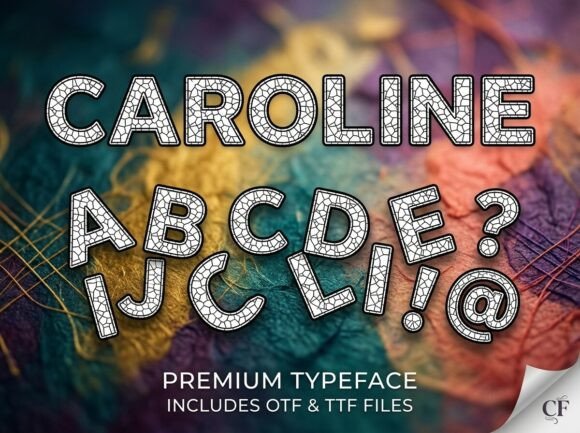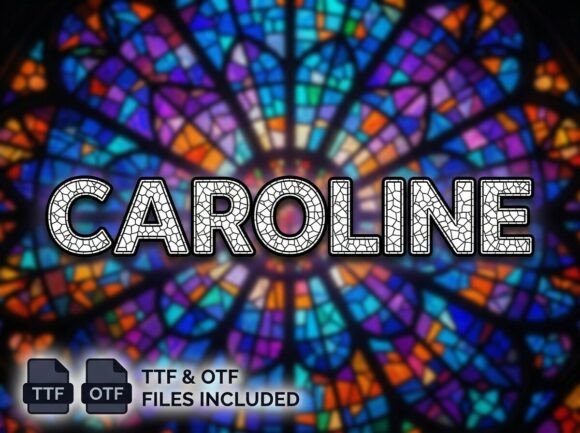
Introducing Caroline: The Bold Display Font Elevating Modern Branding
In the world of typography, a font can make or break a brand’s identity. For designers and crafters seeking to elevate their branding, Caroline – a bold display font – is the perfect solution. This stunning typeface seamlessly balances clean, modern geometry with intricate internal detail, giving it a unique “high-tech-artisan” soul.
The Design Behind Caroline
Caroline features sturdy, sans-serif letterforms meticulously filled with a microscopic “stained-glass” or mosaic pattern. This distinctive design element sets Caroline apart from other fonts, imbuing it with a sense of sophistication and elegance. The font’s bold and authoritative weight makes it perfect for headlines, titles, and statements that demand attention.
Ideal Applications for Caroline
Caroline’s versatility and professional clarity make it an excellent choice for a variety of applications, including:
- Modern Architectural Identities: Caroline’s clean lines and geometric patterns evoke a sense of modernity and innovation, making it perfect for architectural firms, real estate brands, and construction companies.
- Independent Jewelry Branding: The font’s luxurious feel and attention to detail make it an excellent fit for high-end jewelry brands, boutique stores, and independent designers.
- Innovative Textile Design Headers: Caroline’s bold and colorful personality shines in textile design, adding a touch of sophistication to fabric patterns, fashion brands, and home decor.
- Striking “Digital-Abstract” Social Media Graphics: The font’s geometric patterns and modern aesthetic make it perfect for creating eye-catching social media graphics, digital art, and online advertising.
Why Choose Caroline?
With Caroline, designers and crafters can:
- Elevate their branding: Caroline’s unique design and authoritative weight help establish a strong brand identity that stands out from the competition.
- Convey professionalism: The font’s clean lines, geometric patterns, and attention to detail convey a sense of expertise and professionalism.
- Add a touch of sophistication: Caroline’s luxurious feel and elegant design make it perfect for brands seeking to add a touch of sophistication to their visual identity.
Tips for Using Caroline Effectively
To get the most out of Caroline, consider the following tips:
- Use it boldly: Caroline is designed to make a statement, so don’t be afraid to use it in bold and eye-catching applications.
- Experiment with colors: The font’s geometric patterns and mosaic design elements respond beautifully to color, so experiment with different hues and combinations to find the perfect fit for your brand.
- Pair it wisely: Caroline pairs well with clean, sans-serif fonts and simple backgrounds, allowing it to take center stage.
Caroline is a game-changing font that can elevate your branding and take your designs to the next level. With its unique blend of modern geometry and intricate internal detail, this bold display font is perfect for designers and crafters seeking to make a statement. Whether you’re working on a modern architectural identity, independent jewelry branding, or striking social media graphics, Caroline is the premier choice for adding a touch of sophistication and professionalism to your visual identity.